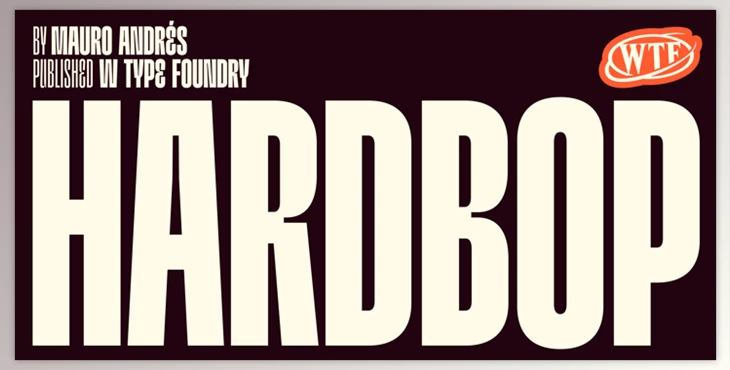
Hardbop Font Family:
Hardbop is a typesetting system inspired by jazz, specifically the style it's named in honor of "Hardbop". It's also inspired by prolific works by Reid Miles for the covers of Blue Notes Records in the 50s, Japanese jazz album covers of the 1970s, as well as condensed and grotesque hand-painted signs.
Hardbop includes references to classic fonts, such as Impact, Bebas, Din, Frontage, and TT Trailers which are the latter, in the exaggeration and exaggeration in certain aspects like counter forms and endings.
The Hardbop design is suitable to create titles and large spaces. It is specially made for posters and covers with the intention of not being overlooked. While it's a tiny family, it offers games with a broad selection of characters.